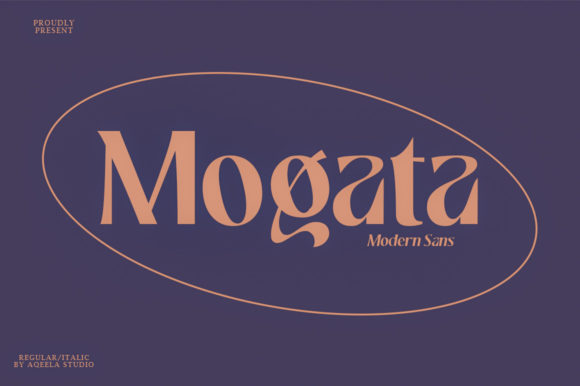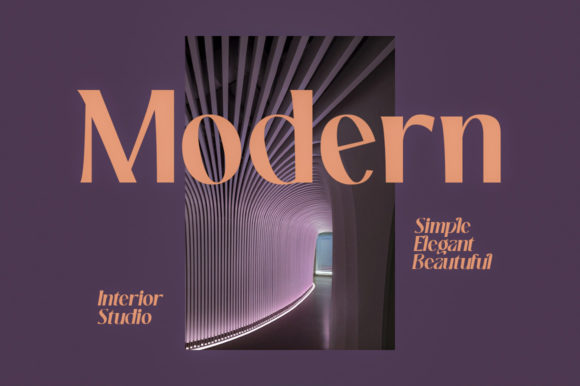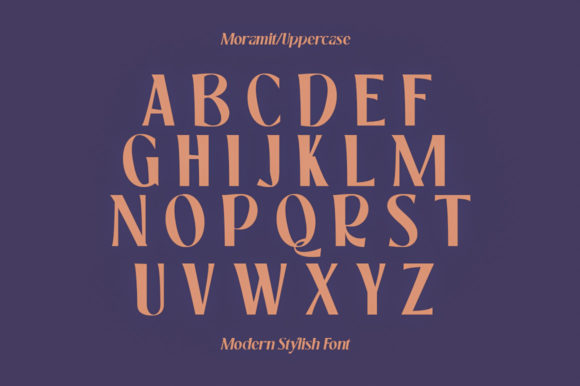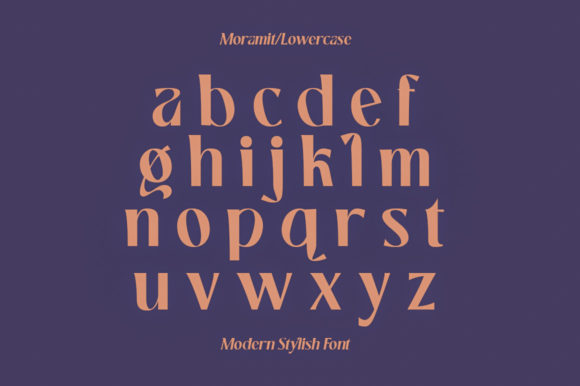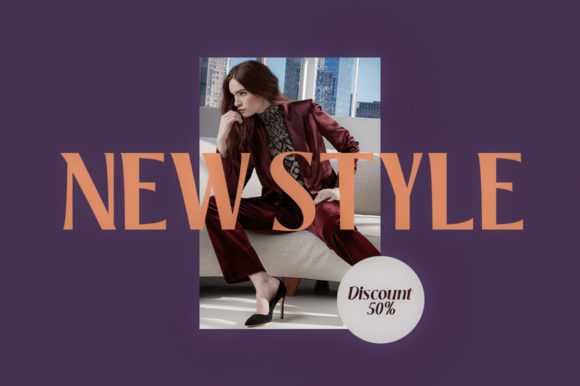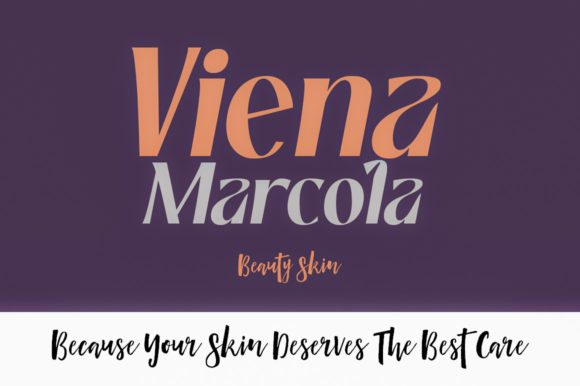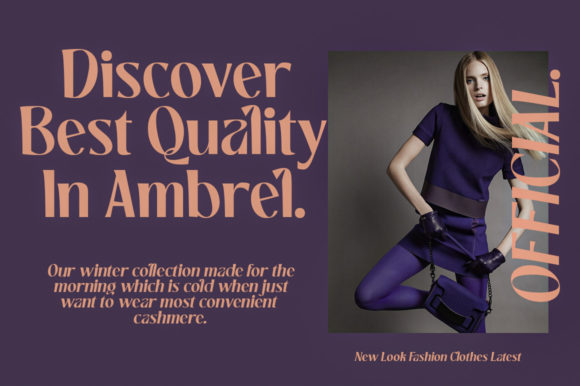
Mogata
Mogata: A Modern Slab Serif Font
Mogata is a modern slab serif font featuring beautiful alternates, ligatures, special glyphs, ornaments, and multilingual support. This versatile font works great in both large and small sizes, making it perfect for editorial projects, logo design, clothing branding, product packaging, magazine headers, or simply as a stylish text overlay on any background image.
Key Features of Mogata
• Modern Design: Offers a sleek and contemporary look suitable for various applications.
• Slab Serif Structure: Features thick, rectangular serifs typical of slab serif fonts.
• Versatile Application: Ideal for both print and digital media projects.
• Beautiful Alternates and Ligatures: Provides stylistic options to enhance your designs.
Ideal Uses for Mogata
Mogata’s unique characteristics make it particularly well-suited for:
When incorporating Mogata into your designs, consider these tips:
• Use for headlines or short blocks of text to showcase its modern style.
• Utilize its stylistic alternates and ligatures to add flair to your designs.
Mogata is an excellent choice for designers looking to add a modern slab serif font to their typographic toolkit. Its ability to bring style and versatility to various design projects makes it stand out in the world of typography. Whether you’re working on editorial projects, creating layouts for magazines, or developing content that requires a touch of sophistication, Mogata offers the perfect blend of style and functionality.
Furthermore, Mogata’s unique design allows it to shine in various contexts. From vintage-inspired designs with a modern twist to more contemporary layouts that need a touch of uniqueness, this font can elevate your projects. Its striking yet functional style works particularly well in designs that require a thoughtful and engaging mood.
In conclusion, Mogata is a font that truly captures the essence of creativity and impact in typography. Its ability to work well in both minimalist projects and more elaborate layouts showcases its flexibility. For those looking to add a touch of unique charm to their work, Mogata can even enhance themed creations with its distinctive style. It’s the perfect choice for designers seeking to make a strong, stylish impact across a wide range of creative projects.